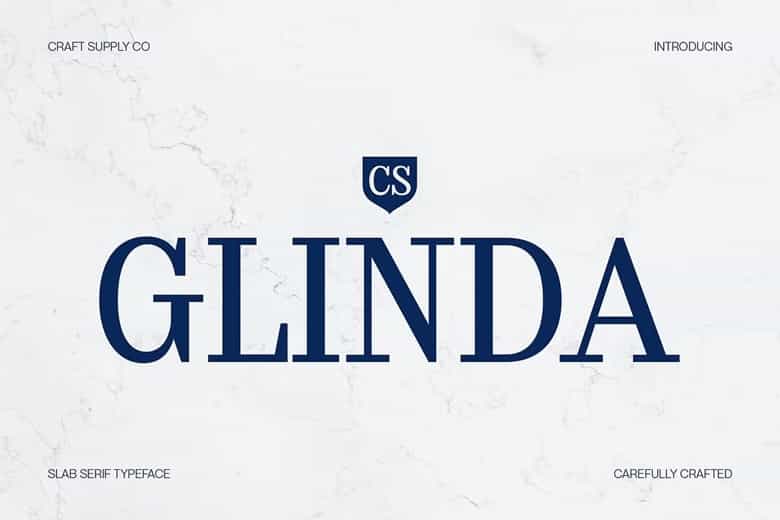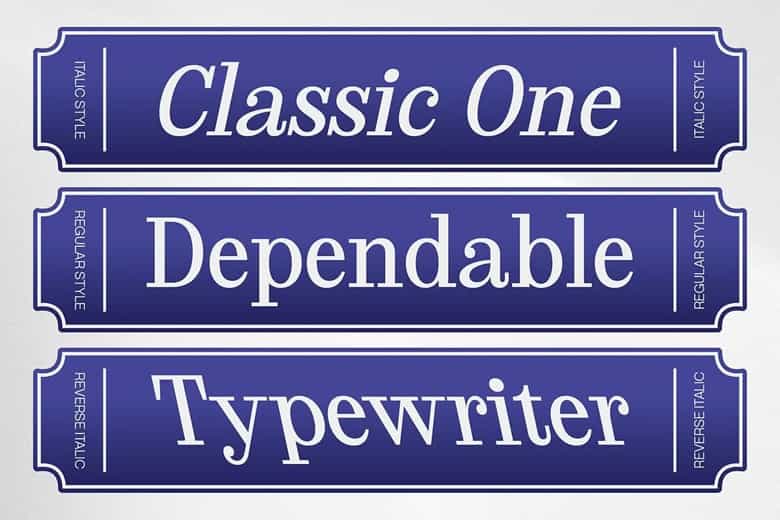
CS Glinda is a new slab font that solely has influences from both historic and contemporary slab serif styles. It is great for both texts and graphics, as well as having structured serif that looks more commanding without gone too far into the realm of conservative, thus delivering a great message out of words. These font styles are perfect in providing professionalism in graphic designing work and carries a greater commanding visual appeal.